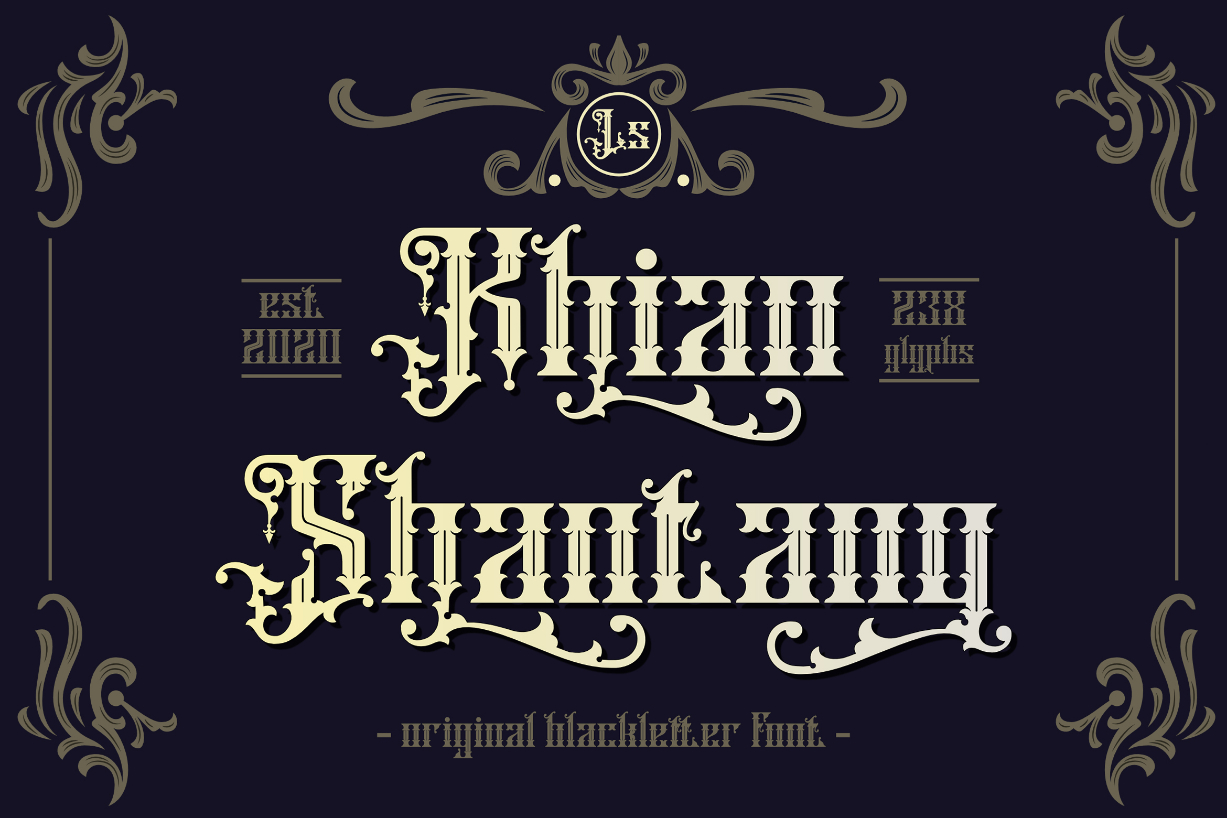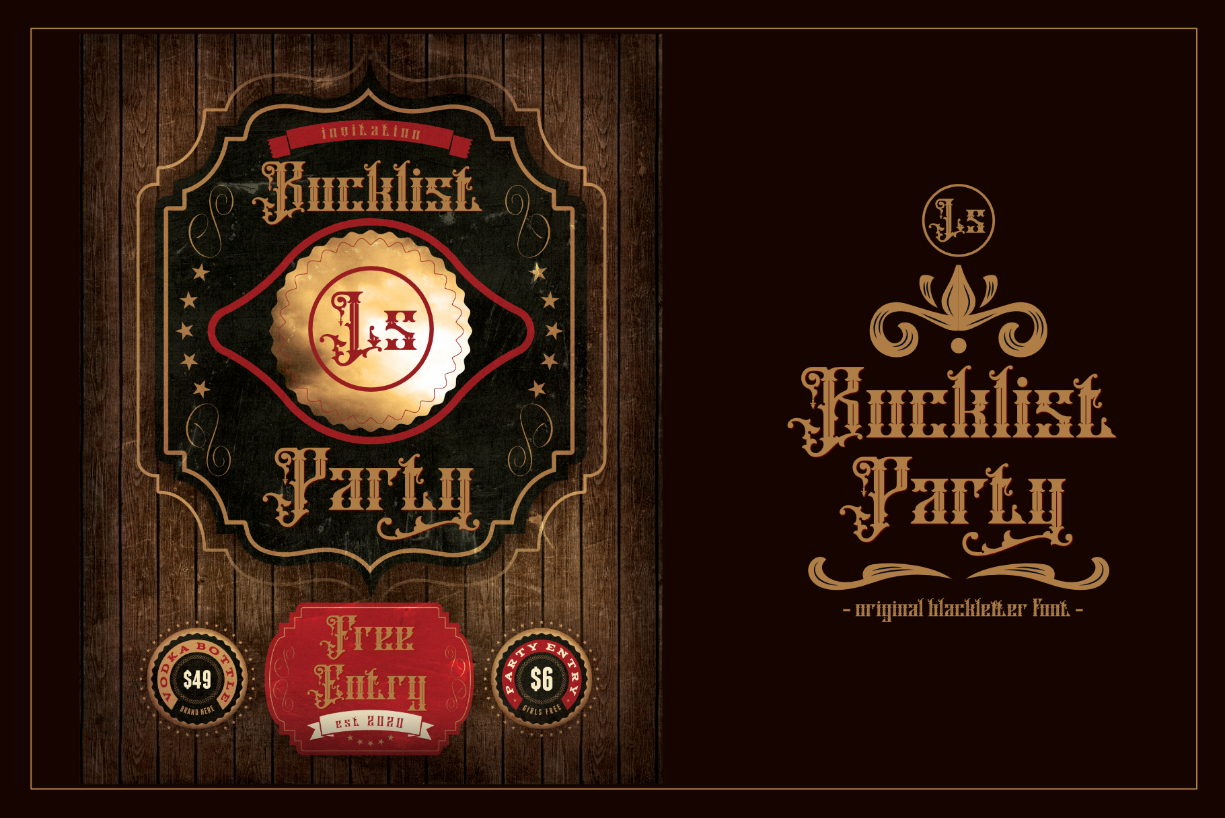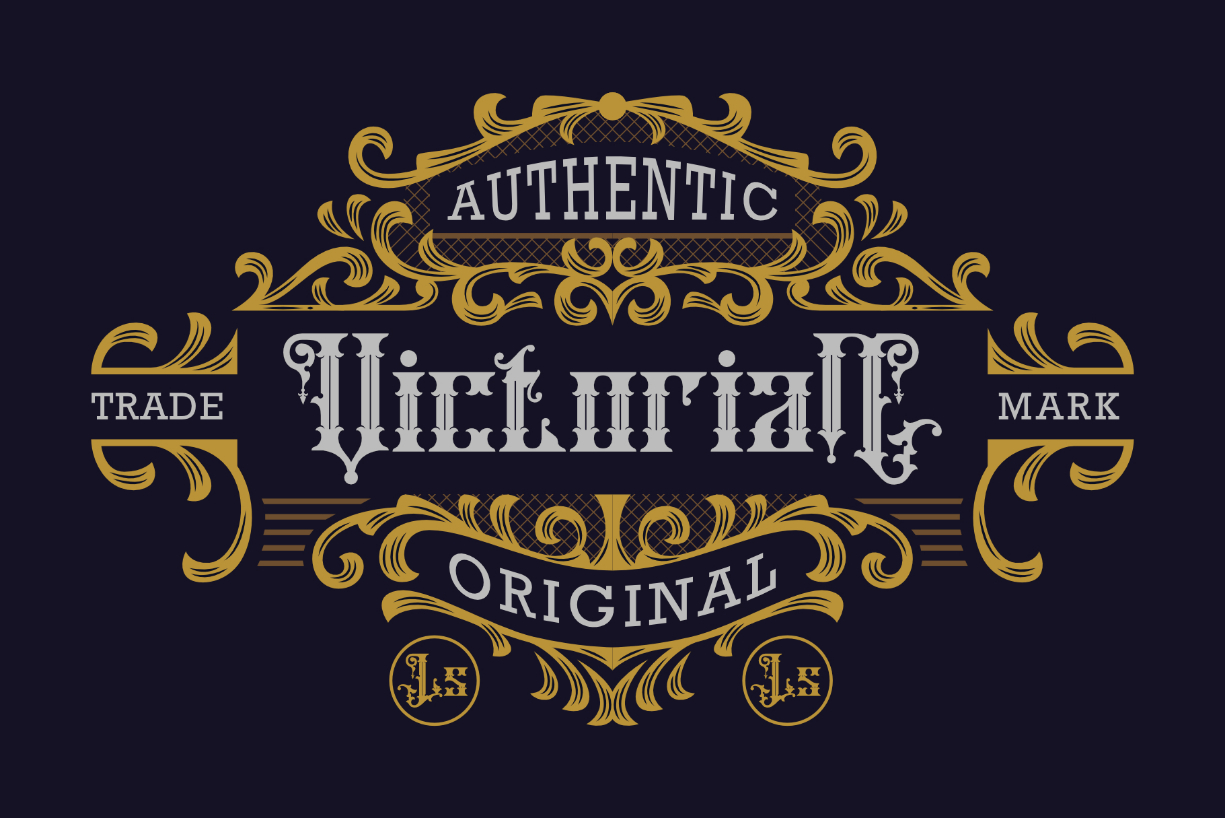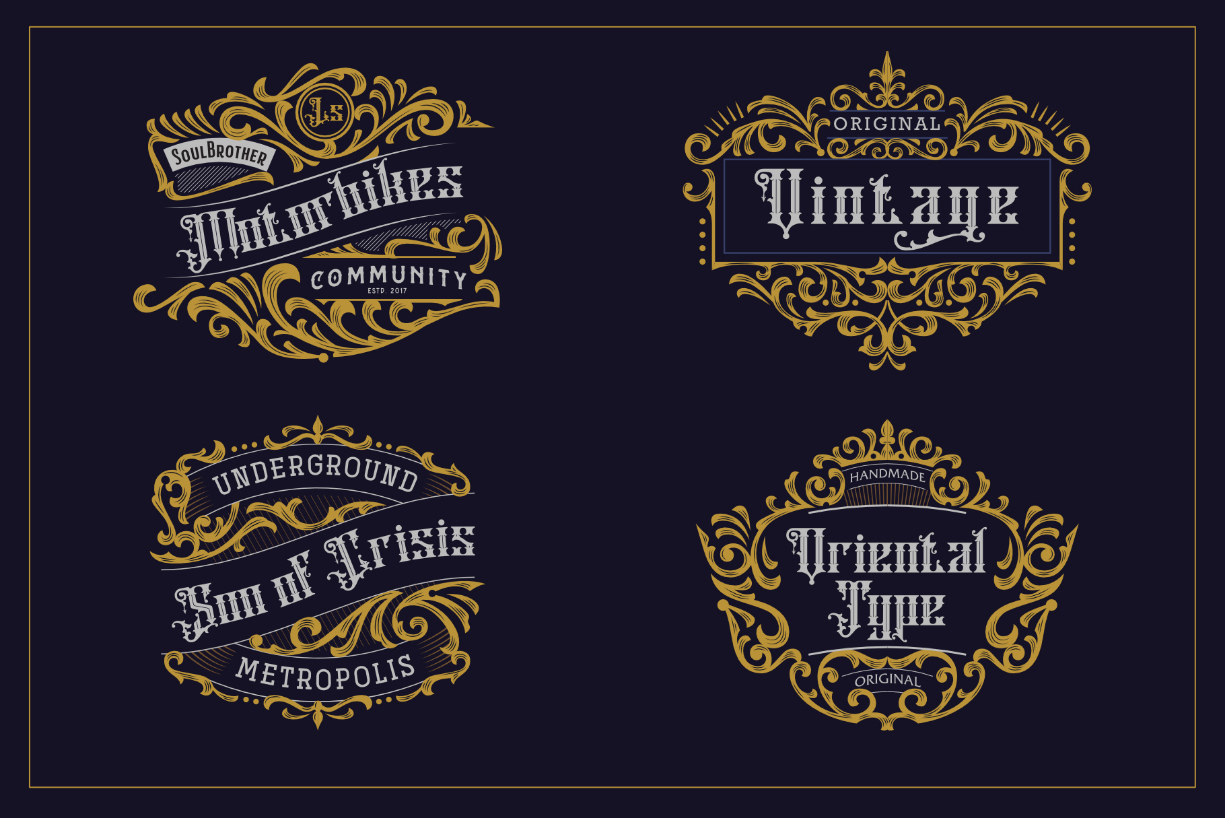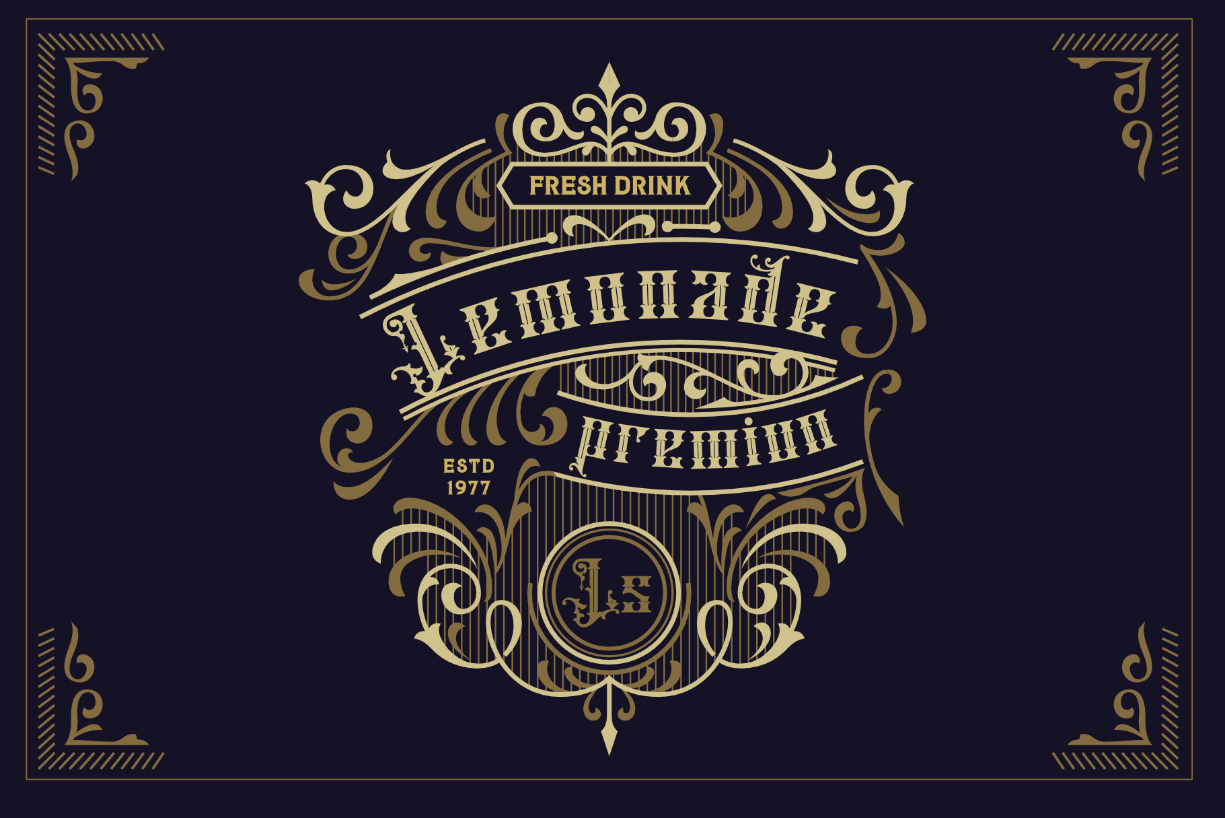
Khian Shantang Font
About Khian Shantang Font
Khian Shantang is a bold, gothic styled blackletter font. It is imposing and incredibly adept for designs requiring a strong touch. Add it confidently to your projects, and you won’t be disappointed.